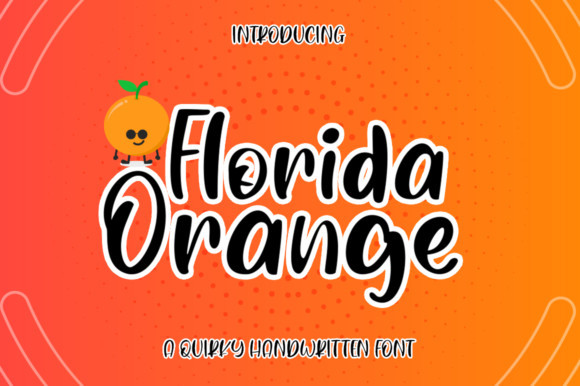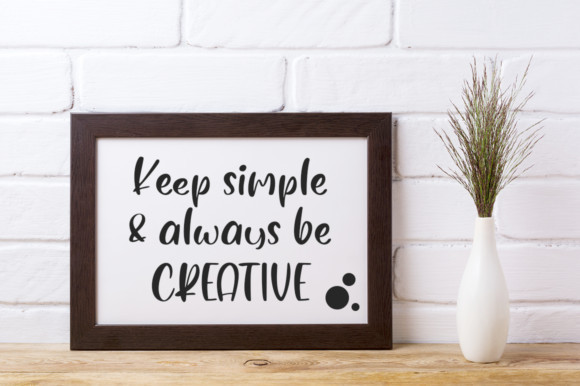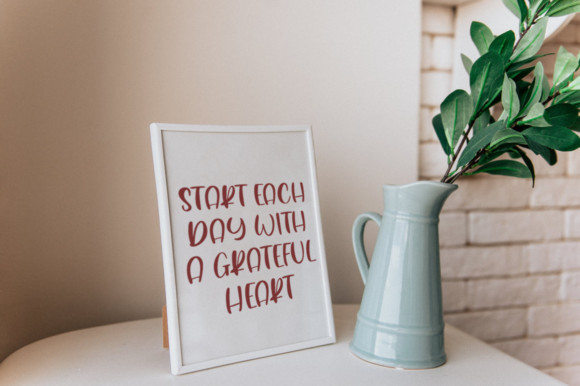
Florida Orange Font
Florida Orange is a cute and quirky display font. It will add an incredibly joyful touch to your designs. Add this beautiful display font to each of your creative ideas and notice how it makes them stand out!